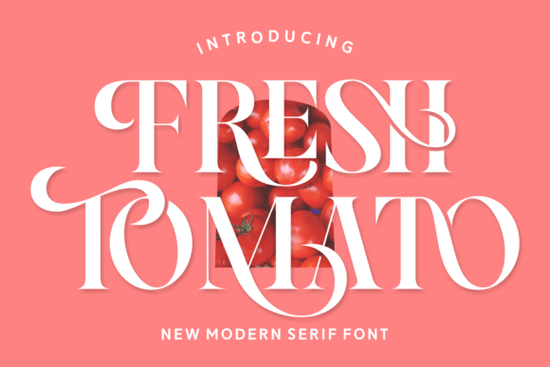
If you've been searching for a serif font that feels warm, expressive, and versatile enough to handle everything from wedding invitations to T-shirt designs, the Fresh Tomato Font is worth a close look. It combines elegant letterforms with a spontaneous, slightly whimsical energy that works across a surprisingly wide range of design projects. Whether you're a crafter, a small business owner, or a print-on-demand seller, this font brings personality without sacrificing readability.
What Kind of Projects Does Fresh Tomato Font Work Best For?
This is one of those fonts that doesn't box you into a single use case. Its clean lines and romantic undertones make it a natural fit for:
- Wedding invitations and save-the-date cards
- Birthday cards and party announcements
- Photography watermarks and caption overlays
- Book covers and magazine layouts
- Logo design for lifestyle and beauty brands
- Packaging design, especially for perfumes, candles, and boutique products
- T-shirt graphics and other apparel prints
- Greeting cards, quotes, and inspirational posters
The font strikes a balance between delicate and trendy, which is exactly why it works across so many different contexts. It doesn't scream for attention it draws people in with charm and authenticity.
Is It a Good Choice for Wedding and Event Stationery?
Absolutely. If you design invitations or event stationery, you know how hard it can be to find a font that feels romantic without being overly formal. Fresh Tomato nails that middle ground. Its elegant curves and flowing letterforms give wedding suites a polished yet approachable look. It also works beautifully for event programs, menus, and thank-you cards.
What Comes in the Font Family?
Fresh Tomato isn't just a single font file. It's a full family that gives you real flexibility:
- Regular style clean and readable for body text and headings alike
- Italic style adds emphasis and movement where you need it
- Ligatures smooth character connections for a more handcrafted feel
- Alternate characters extra stylistic options to customize your lettering
The alternates and ligatures are especially useful when you're working on logo design or branding projects where every detail matters. Swapping in a different "t" or "o" can completely change the mood of your wordmark.
Can Print-on-Demand Sellers Actually Use This Font?
Yes, and here's why it makes sense for POD work. The font reads well at both large and small sizes, which means it works on everything from a T-shirt chest print to a small label on product packaging. Its lively character also gives designs an emotional quality that tends to connect with buyers especially in niches like:
- Gift and novelty apparel
- Wedding and bridal party merchandise
- Motivational and inspirational quote products
- Home décor prints and wall art
Does It Support Multiple Languages?
Fresh Tomato is a multilingual font, which is a practical advantage if you sell to international customers or create designs in languages beyond English. This kind of built-in support saves you the headache of hunting for separate accent characters or swapping fonts mid-project.
How Does It Compare to Other Serif Options?